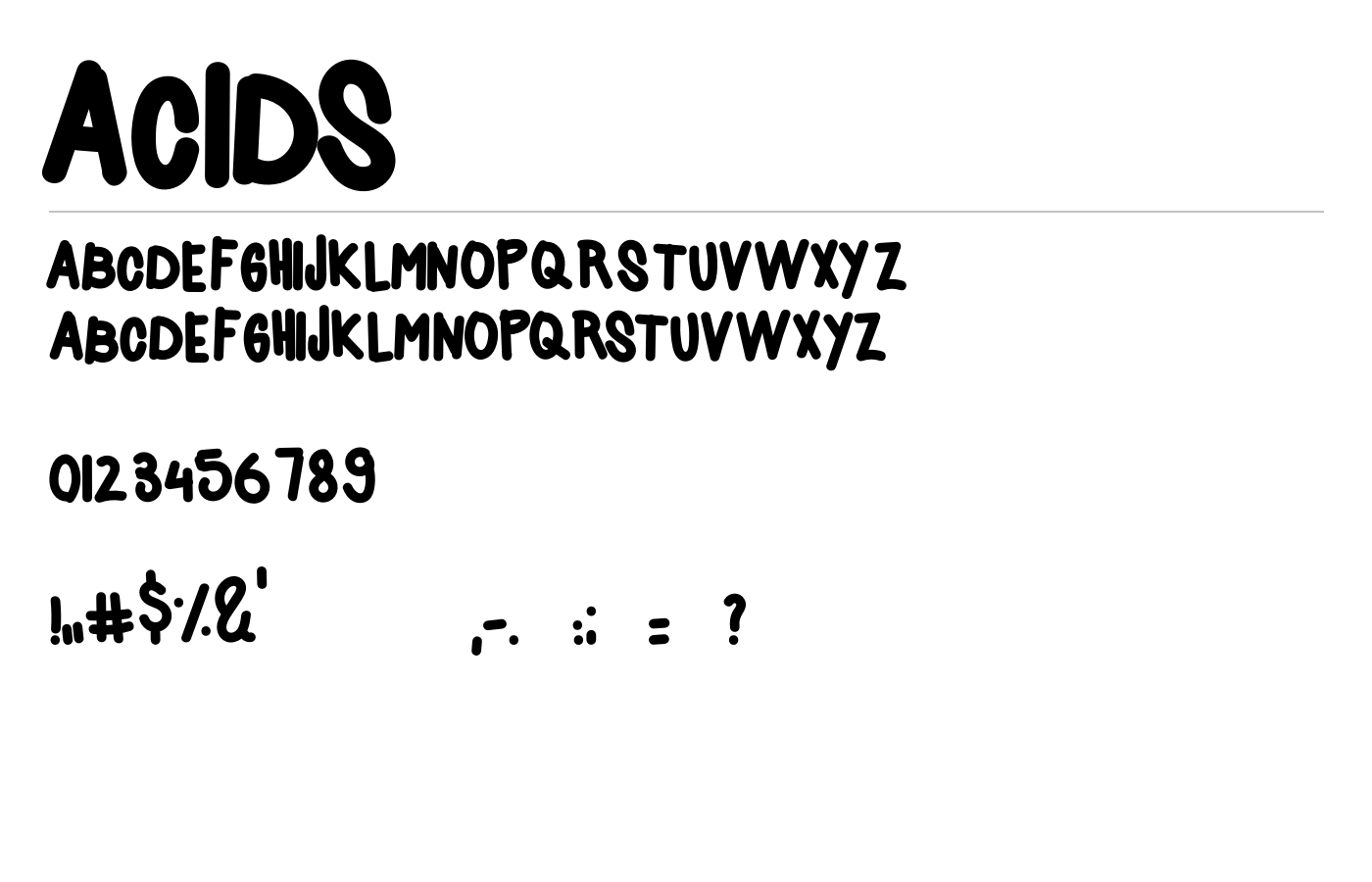
Acids Font is a playful, bold sans serif typeface with a hand-drawn feel, featuring irregular, rounded shapes and a casual, energetic style. Its uneven strokes and lively letterforms give it a fun and approachable personality, making it ideal for creative projects, children's materials, posters, and informal branding where a friendly and dynamic look is desired. This font works best in headlines or display settings, capturing attention with its unique, quirky charm.
Acids Font
About Acids Font
| Font family | Acids Font |
| Designer | Leonard Posavec |